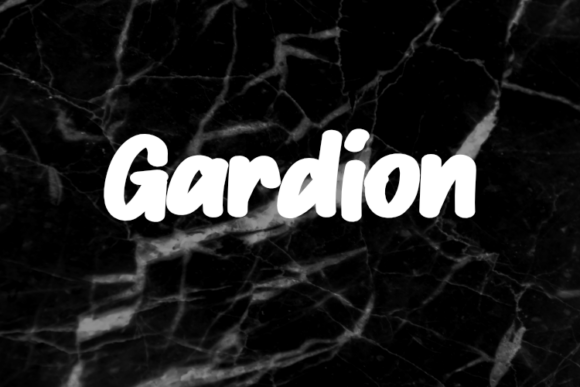
Gardion Font: Unlock Endless Design Possibilities
In the world of typography, a well-designed font can make all the difference in creating captivating and unique designs. Introducing Gardion, a versatile and expertly crafted font that is perfect for embellishing clothing, t-shirts, and a wide range of other products. With its seamless integration with all design programs and included OTF file, Gardion offers limitless possibilities for turning your design projects into masterpieces.
Key Features of Gardion Font
- Versatility: Gardion is designed to be an ideal choice for all types of designs, from fashion and apparel to branding and advertising.
- Limitless Possibilities: With Gardion, you can create unique and captivating designs that showcase your creativity and style.
Exploring the Boundless Potential of Gardion
Gardion font opens up a world of creative possibilities, allowing designers to push the boundaries of typography and design. Whether you’re creating custom apparel, branding materials, or advertising campaigns, Gardion provides the perfect foundation for your designs.
With Gardion, you can:
- Create stunning custom apparel, including t-shirts, hoodies, and hats.
- Design eye-catching branding materials, such as logos, business cards, and brochures.
- Develop unique advertising campaigns, including billboards, social media graphics, and print ads.
The Art of Typography Design with Gardion
Typography is an essential element of design, and Gardion font provides the perfect tool for creating visually stunning typography. With its clean lines, elegant curves, and precise craftsmanship, Gardion is ideal for designers looking to create beautiful and effective typography.
Whether you’re a seasoned designer or just starting out, Gardion font provides the perfect opportunity to explore the world of typography design. With its versatility and limitless possibilities, Gardion is the perfect choice for designers looking to create unique and captivating designs.
Tips for Getting the Most Out of Gardion Font
To get the most out of Gardion font, here are a few design tips to keep in mind:
- Experiment with different sizes and colors: Gardion font looks great in a variety of sizes and colors, so don’t be afraid to experiment and find the perfect combination for your design.
- Pair with other fonts: Gardion pairs well with other fonts, so try combining it with different fonts to create unique and interesting typography.
- Use in different design contexts: Gardion font is versatile and can be used in a variety of design contexts, from fashion and apparel to branding and advertising.
The Benefits of Using Gardion Font
There are many benefits to using Gardion font in your design projects. Here are just a few:
- Unique and captivating designs: Gardion font provides the perfect foundation for creating unique and captivating designs that showcase your creativity and style.
- Versatility: Gardion font is versatile and can be used in a variety of design contexts, making it a great addition to any designer’s toolkit.
In conclusion, Gardion font is a versatile and expertly crafted font that is perfect for embellishing clothing, t-shirts, and a wide range of other products. With its seamless integration with all design programs and included OTF file, Gardion offers limitless possibilities for turning your design projects into masterpieces.
Whether you’re a seasoned designer or just starting out, Gardion font provides the perfect opportunity to explore the world of typography design and create unique and captivating designs that showcase your creativity and style.